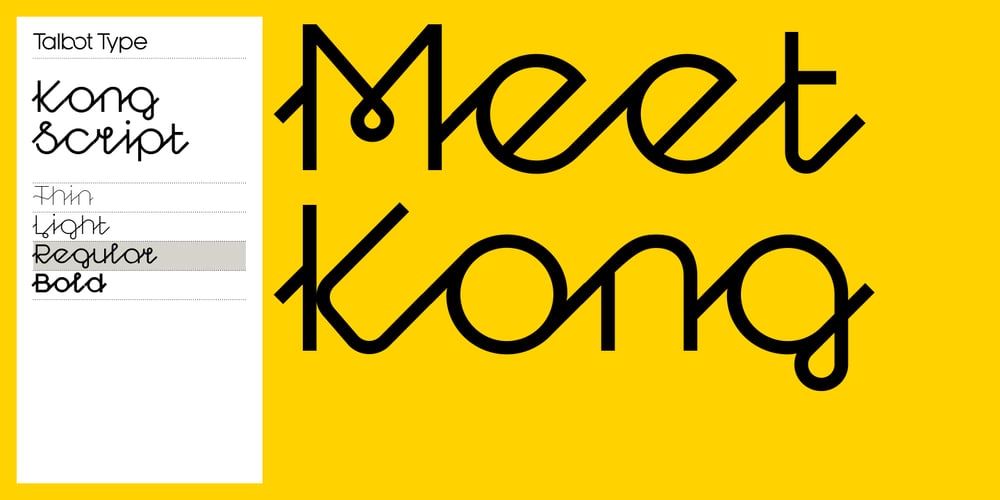
Kong Script Font Family was designed by Adrian Talbot and published by Talbot Type. Kong Script contains 8 styles and family package options. Kong Script is a contemporary, geometric, script typeface, a modern interpretation of a traditional style. The upper and lower case character sets link seamlessly, in the manner of a traditional script, to create an easy, flowing look. It’s full of character and works well as a stylish, memorable display font.